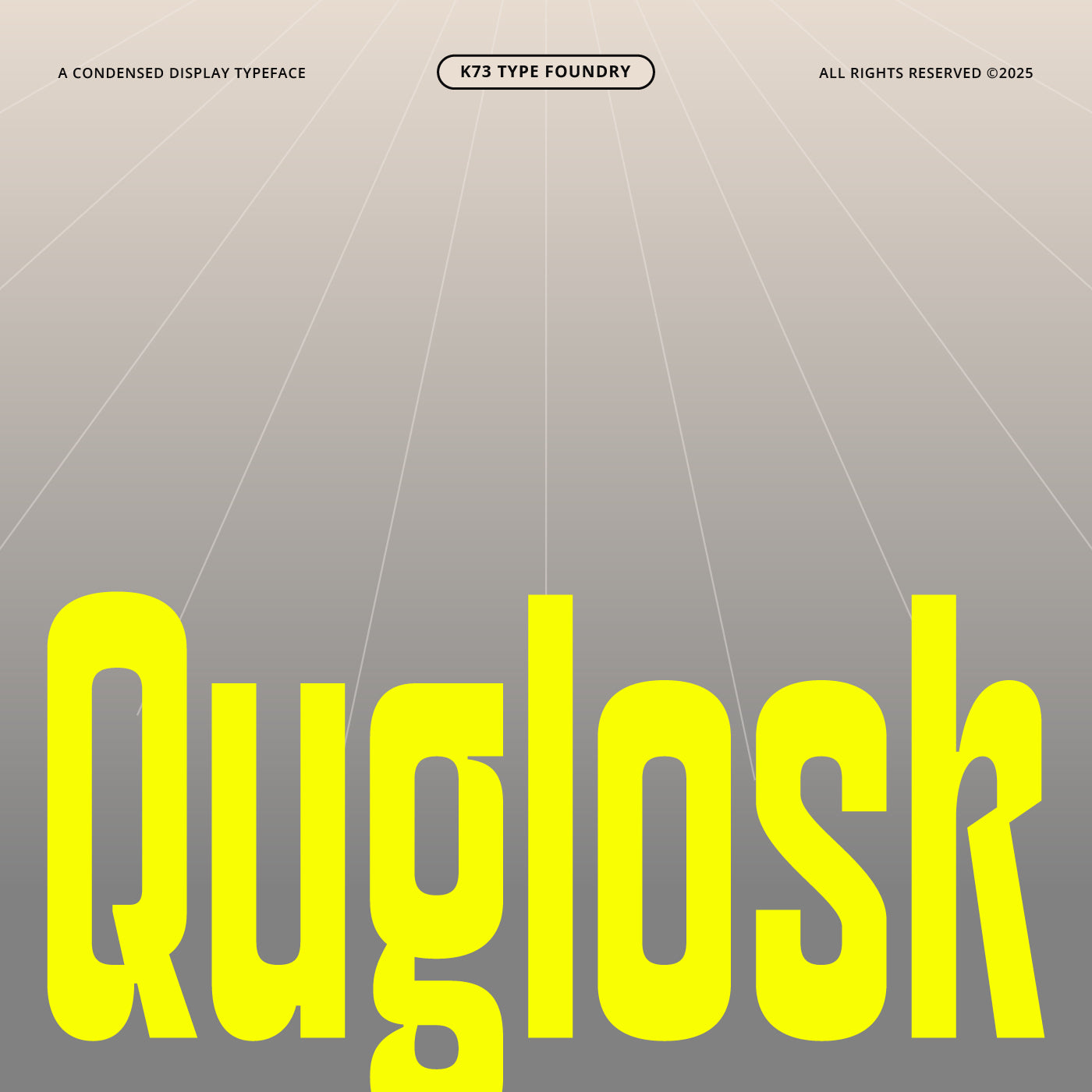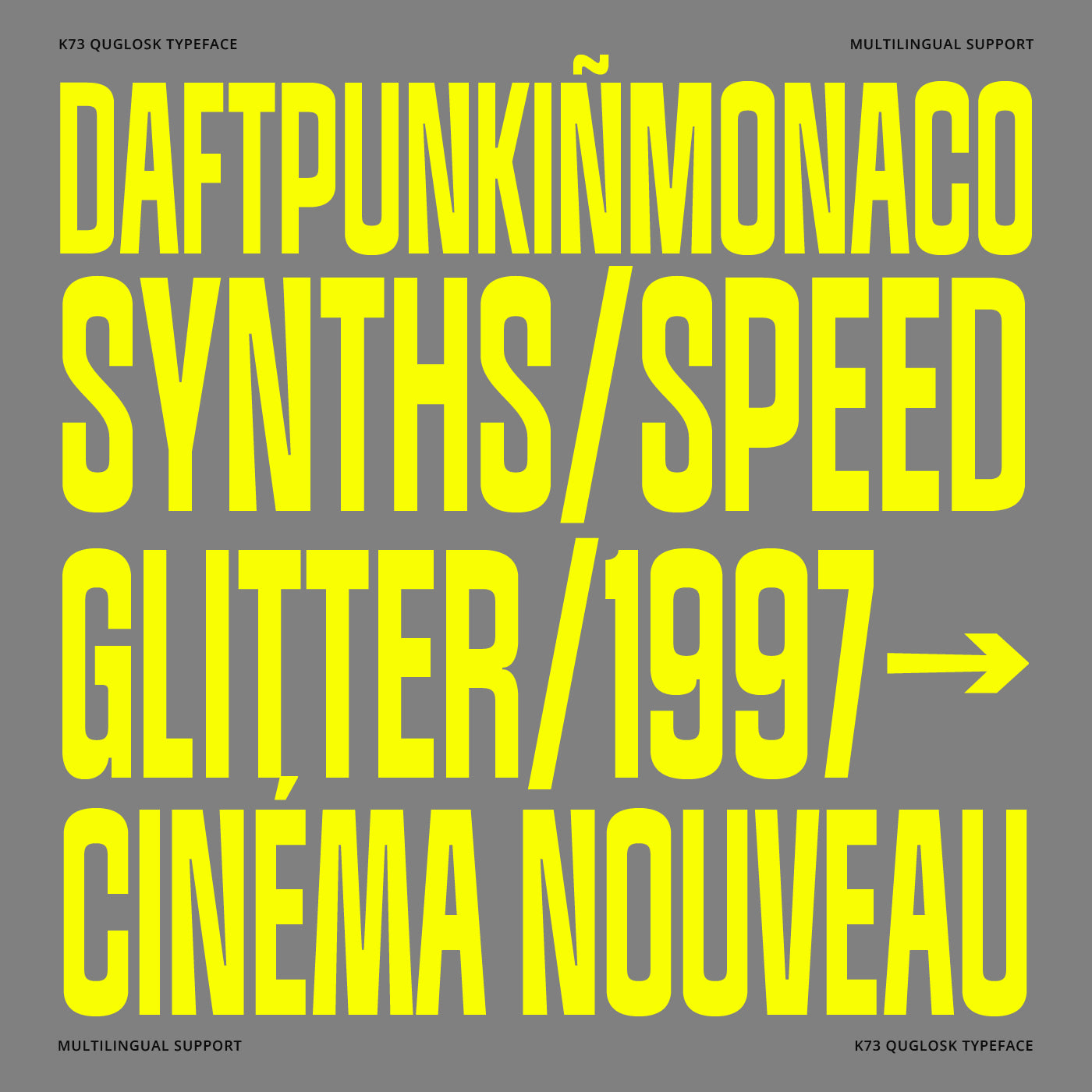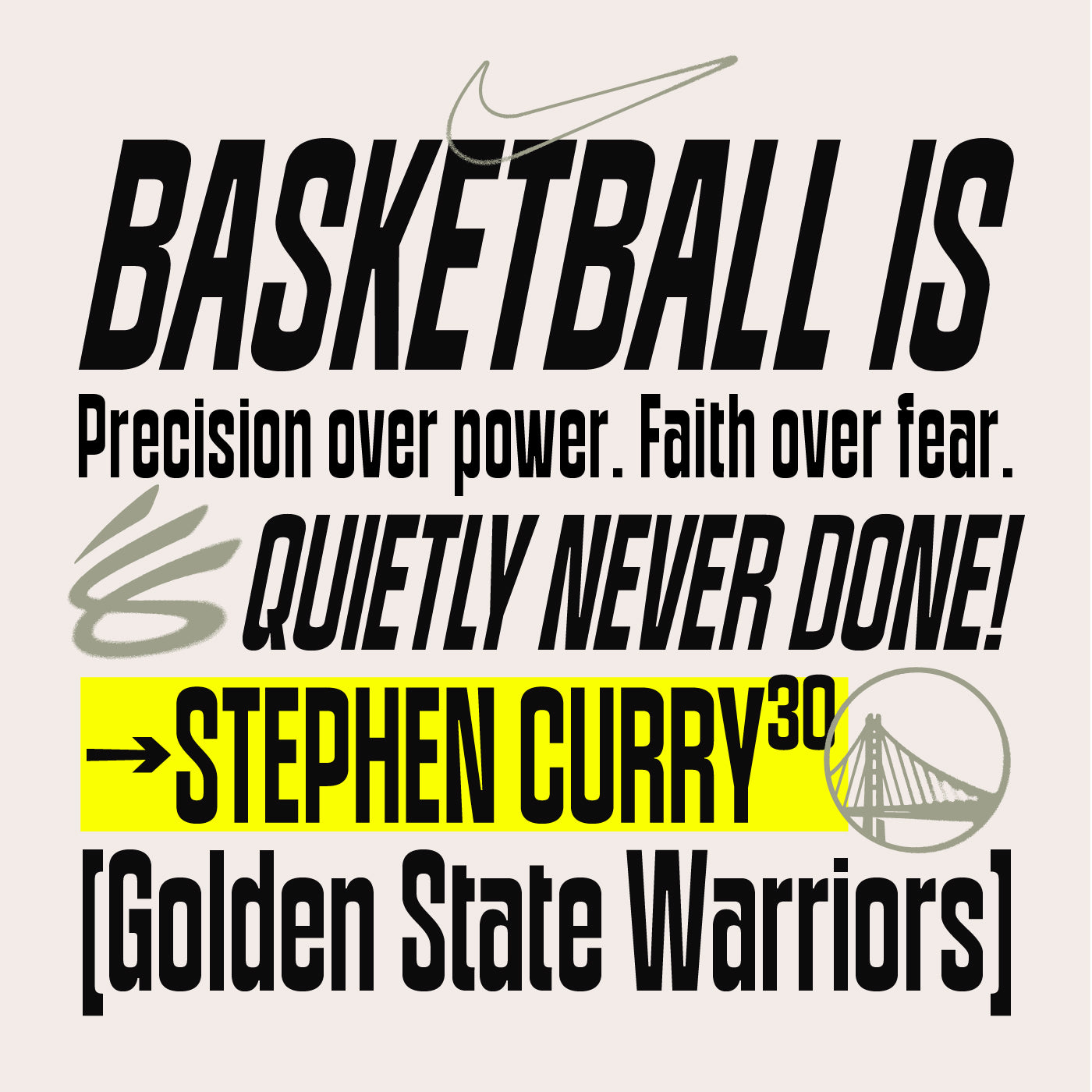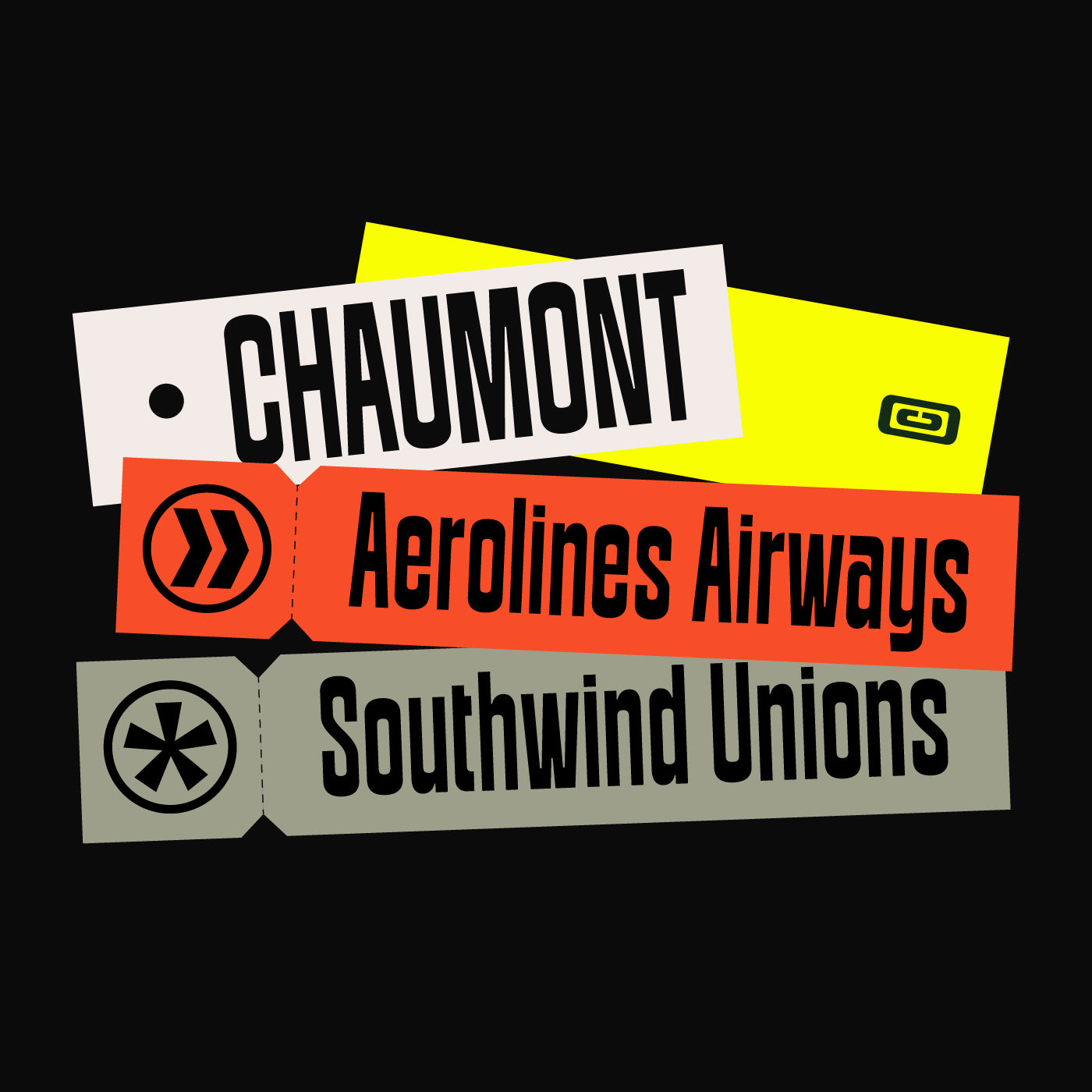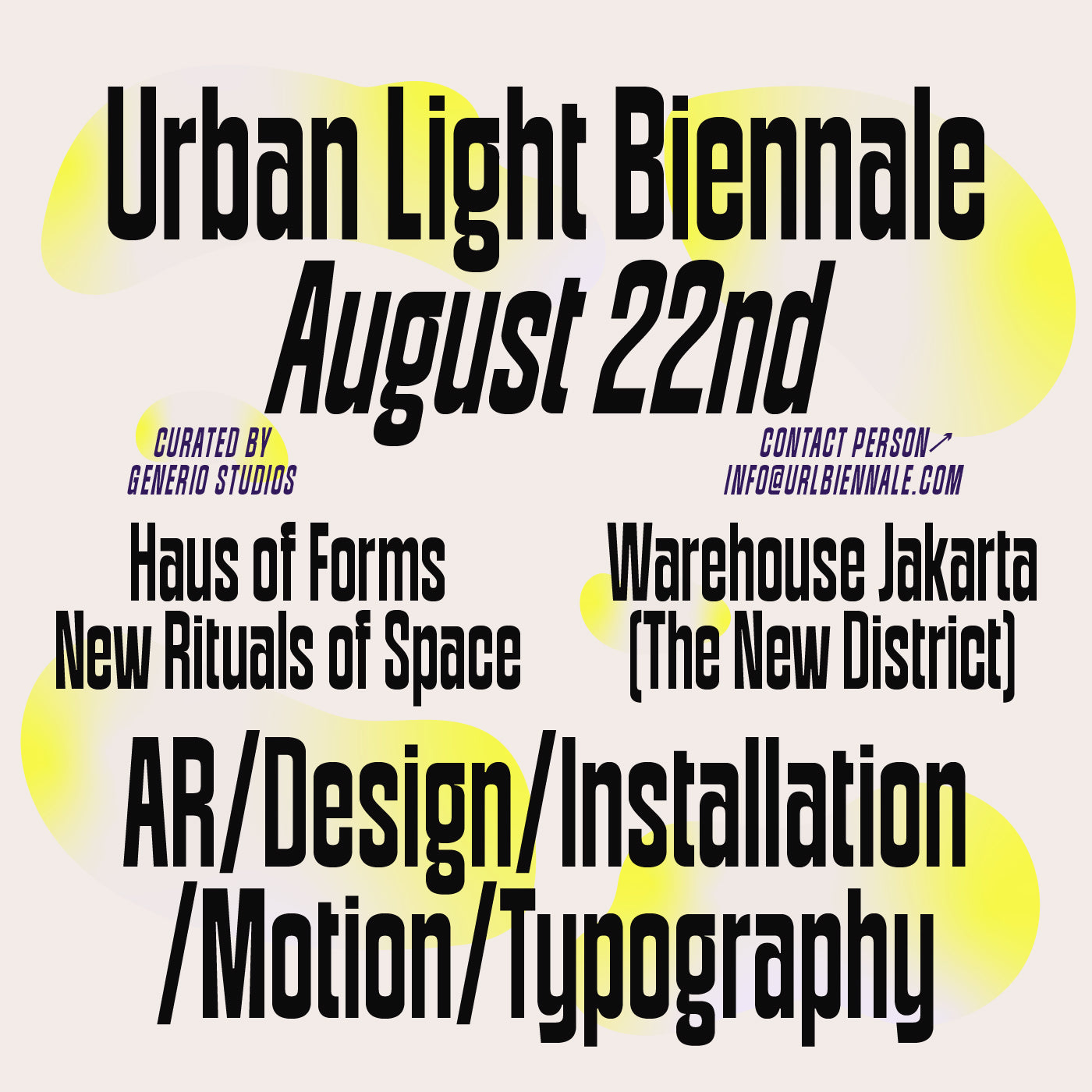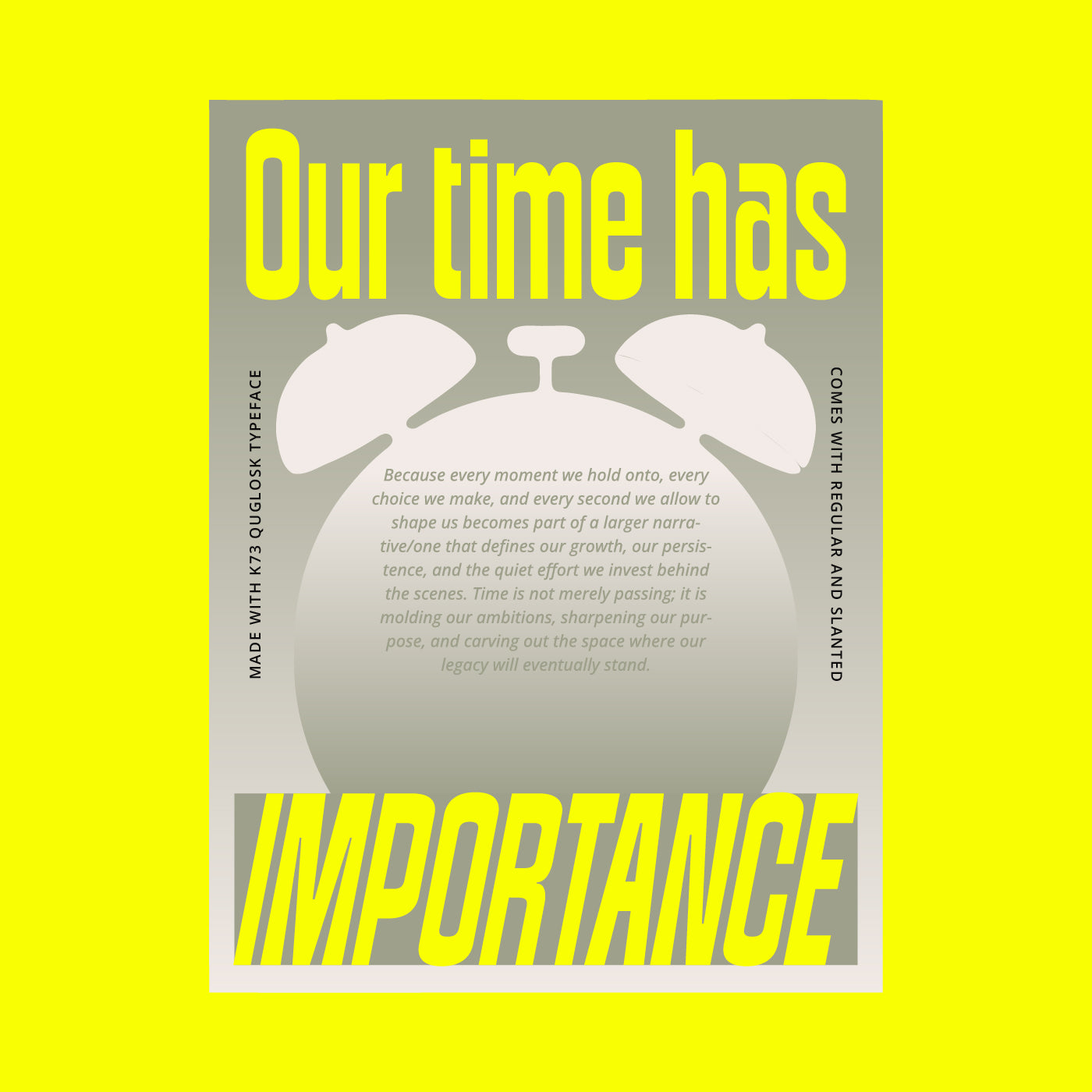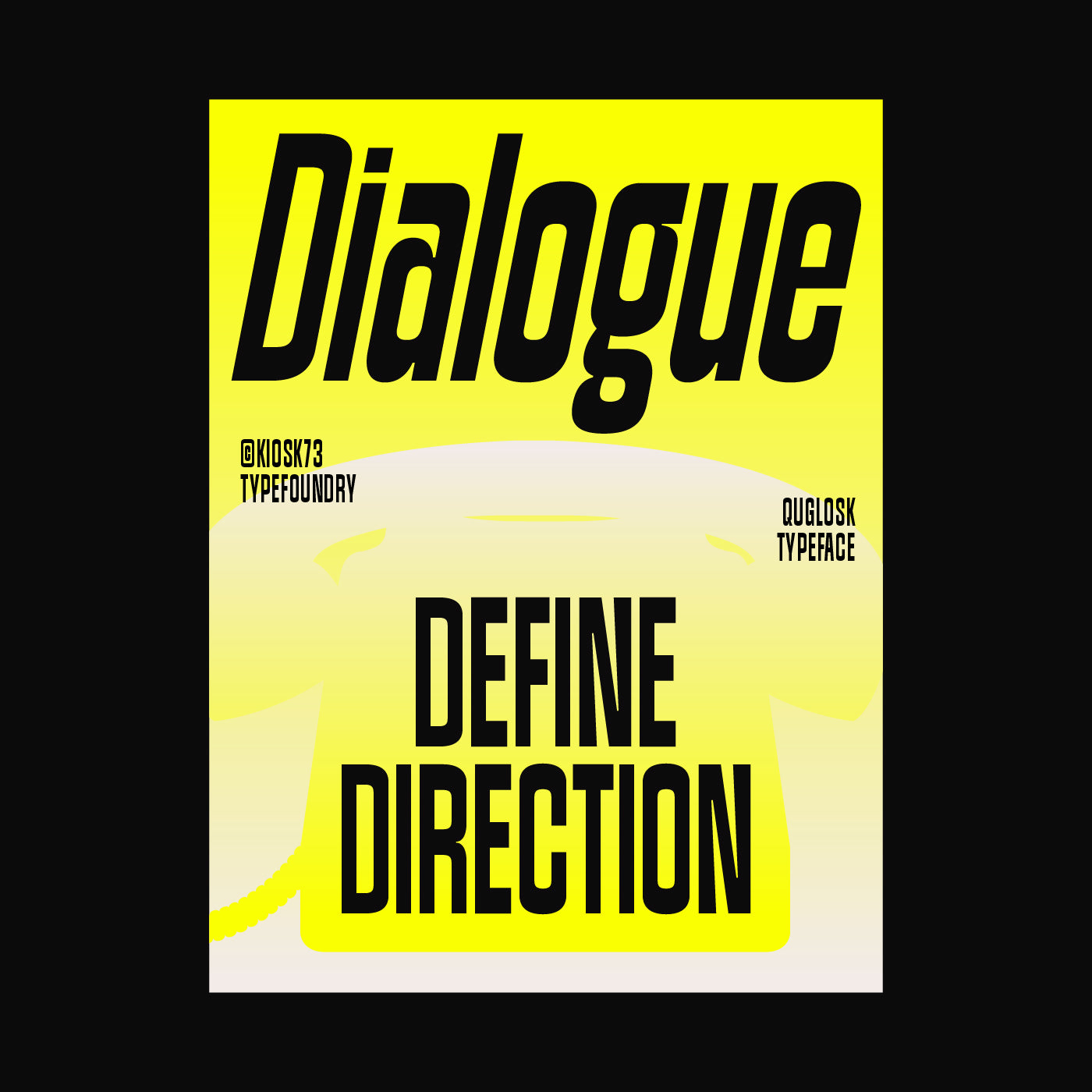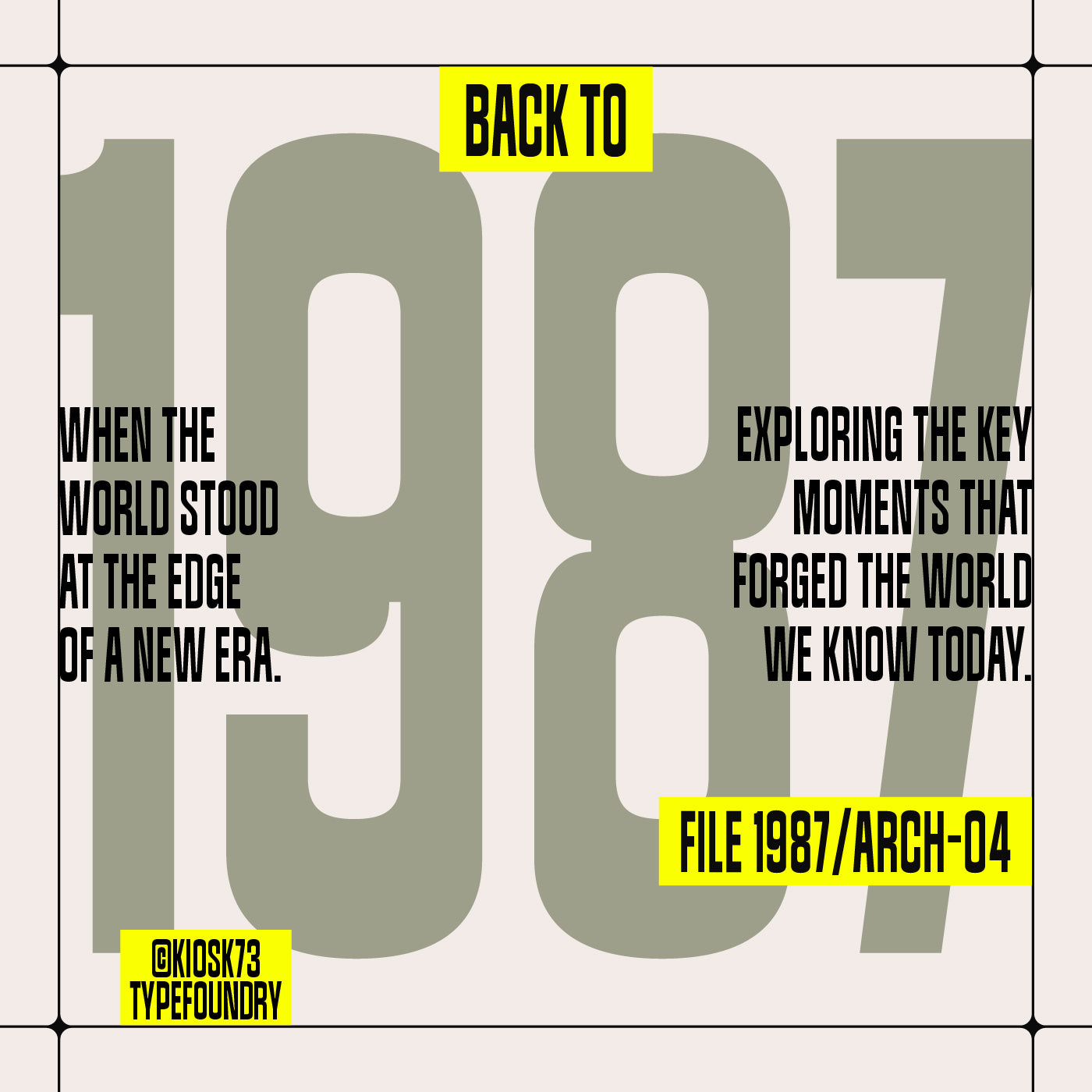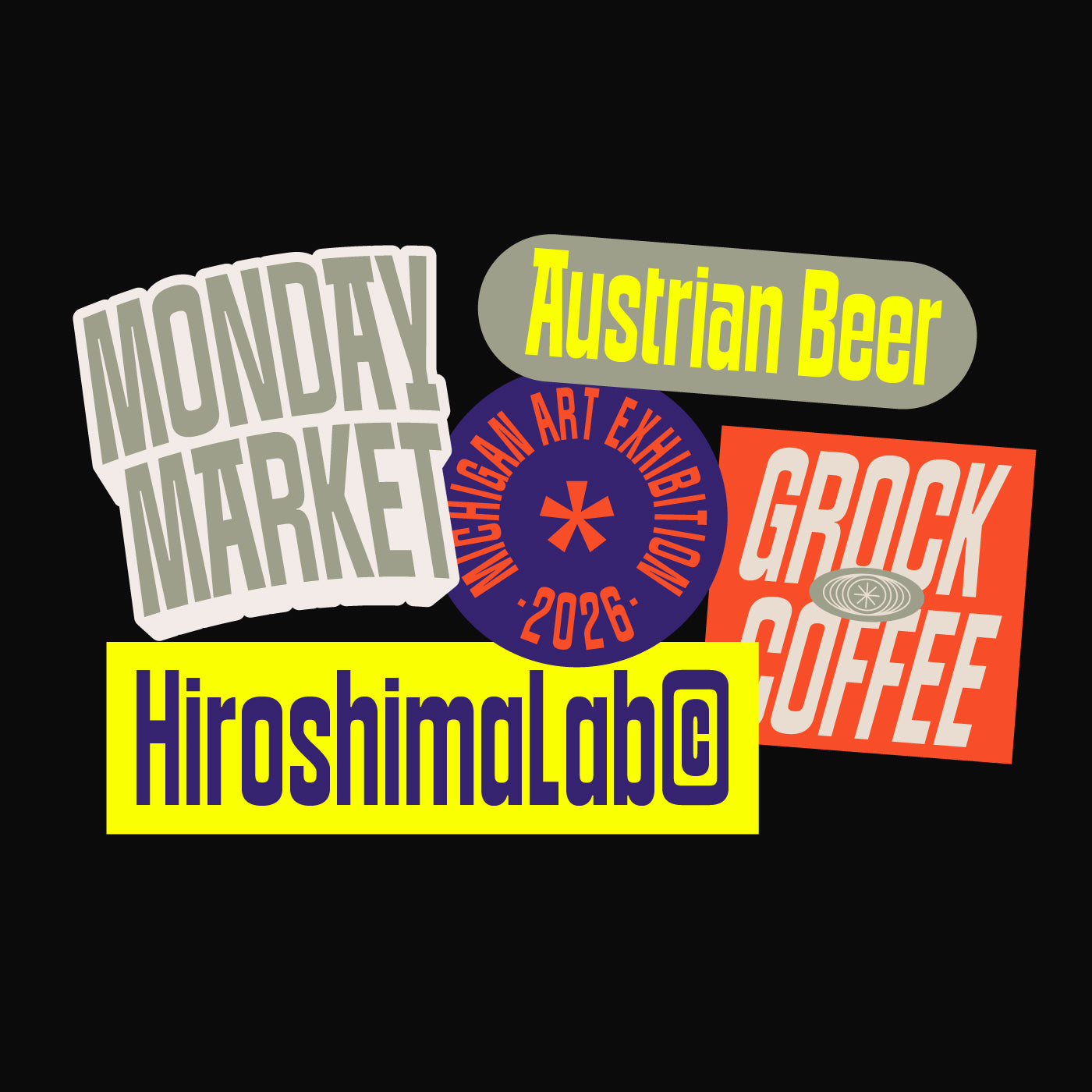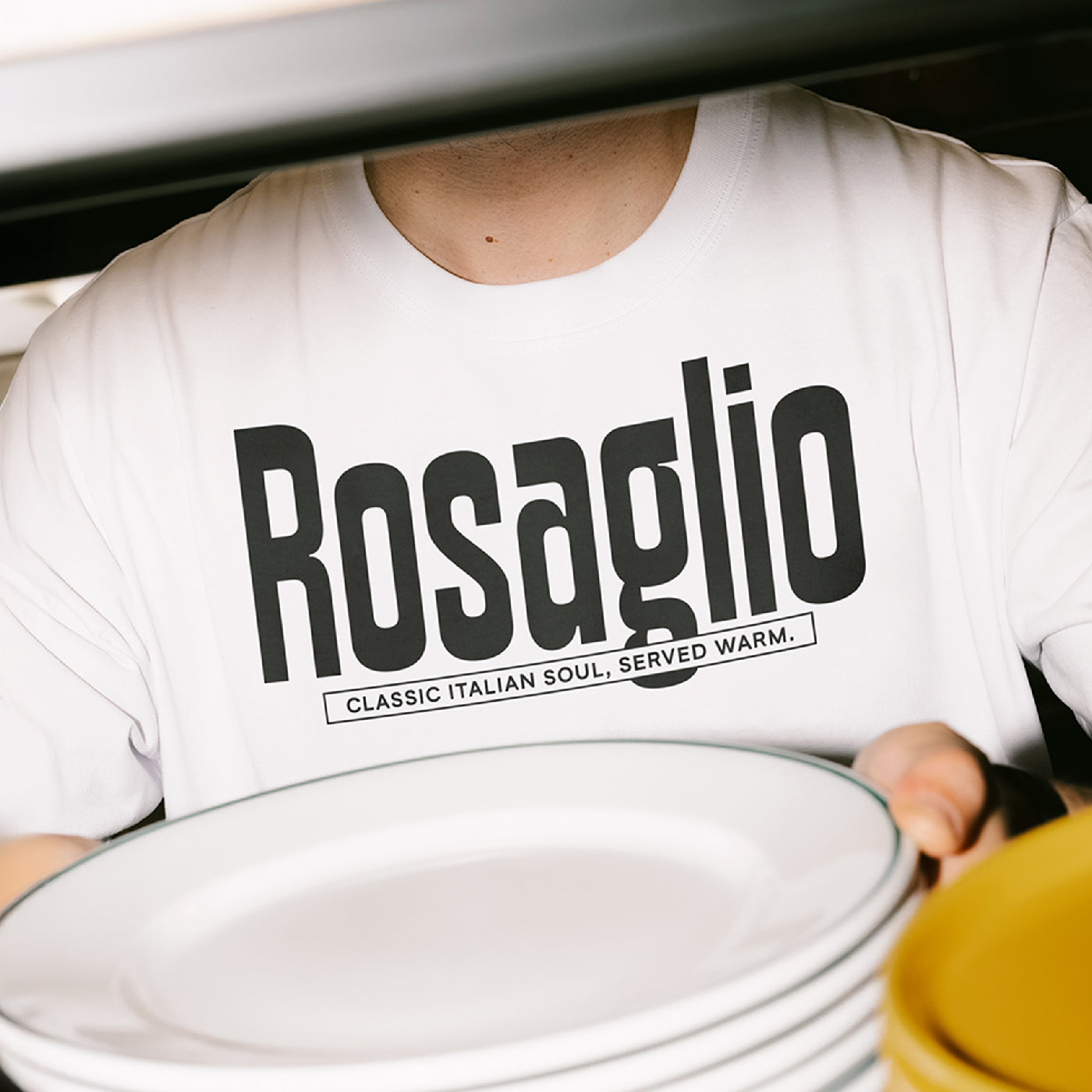
K73 Quglosk Typeface
K73 Quglosk is a condensed display typeface built to grab attention instantly. Its tall, compact forms create a bold, modern presence while maximizing space efficiency, making it ideal for striking headlines, posters, and strong visual identities.
Balanced between firmness and simplicity, K73 Quglosk stays highly readable across sizes and layouts. With its contemporary character and confident tone, it brings a distinctive personality that stands out clearly and powerfully in any design.
K73 Quglosk is a condensed display typeface designed for bold, modern visuals with tall, compact forms that maximize space efficiency. It offers high readability across various sizes and layouts, making it suitable for striking headlines and strong visual identities.